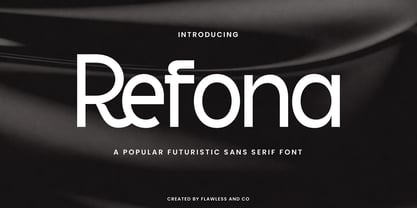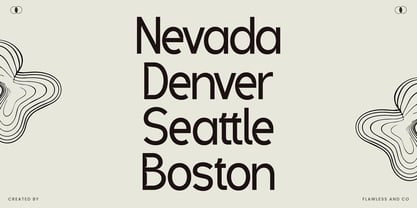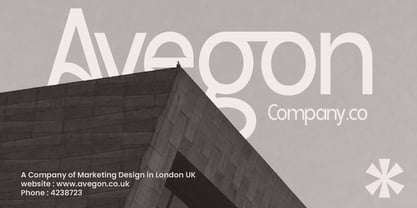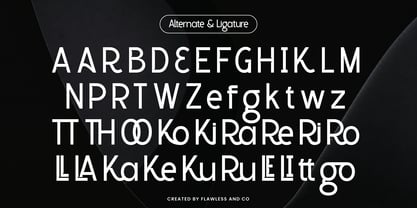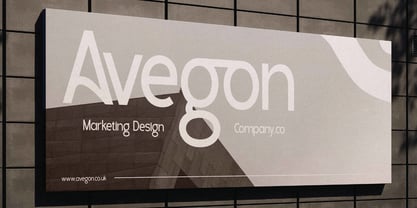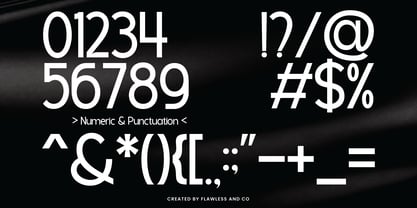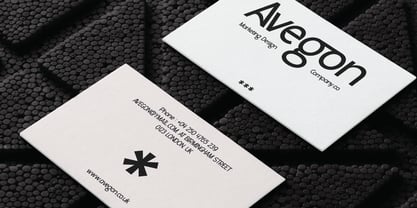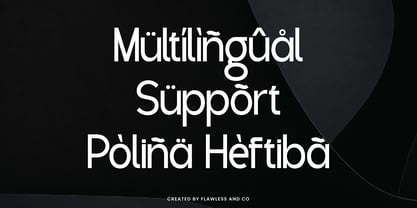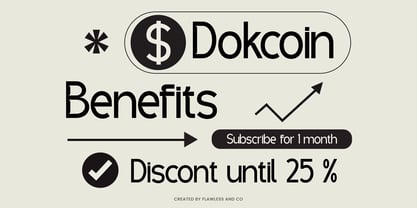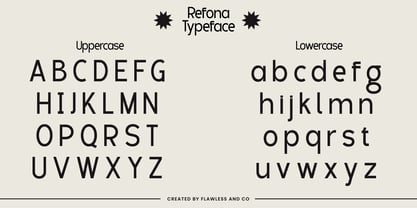
Refona
by Flawlessandco
The Refona Font Family was designed by Achmad Yani and published by Flawlessandco. Refona contains 1 styles. More about this family
Refona is a futuristic sans serif font that blends clean lines with a forward-thinking aesthetic. With its modern simplicity and sleek geometric forms, Refona offers a bold, minimal look that's perfect for tech-savvy branding and contemporary visual design. Designed to deliver clarity and style, Refona works beautifully across digital platforms, print materials, and product packaging. Its smooth letterforms and sharp edges give your typography a refined futuristic feel—ideal for logos, headlines, posters, and UI design. Whether you're building a tech brand, launching a digital product, or crafting high-impact visuals, Refona brings precision and modernity to every project.
Features :
Multilingual, Uppercase alphabet A-Z, Lowercase alphabet a-z, Numbers 0-9, Some punctuation, Alternates & Ligatures
Designers: Achmad Yani
Foundry: Flawlessandco